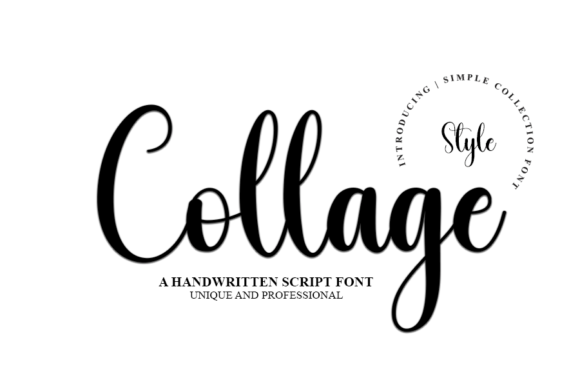
Introducing the Collage Font family, a handcrafted masterpiece that captures the essence of warmth and comfort – the perfect addition to your digital toolbox. Dive into a world of creativity with this enchanting script font that's as versatile as it is beautiful. Whether you're a seasoned designer or just starting, Collage will elevate your projects to new heights.
Picture this: a handwritten font so charming, it invites your readers into a cozy embrace. Its graceful curves evoke the warmth of a crackling fireplace, while its playful flourishes add a touch of whimsy that sparks a smile. Collage is more than just a font; it's an expression of your unique style.
Unleash your creativity with Collage, a font that's as versatile as your imagination. Its timeless design seamlessly complements any project, from heartfelt greeting cards to eye-catching digital designs. Add a touch of elegance to your presentations, let your craft projects shine with personality, or make your social media posts stand out from the crowd. With Collage, the possibilities are endless.
Step into the world of Collage, where every letter is a work of art. Each character dances across the page with a charm that captivates and inspires. Whether you're designing for print or digital, Collage Font transforms your words into visual masterpieces. Its effortless flow and elegant lines add a touch of magic to every project.
Collage Font is the perfect choice for those who yearn for a touch of homey charm in their digital creations. Its warm and inviting feel makes it ideal for projects that evoke a sense of nostalgia, comfort, and belonging. Whether you're designing a family photo album, creating personalized gifts, or crafting heartwarming invitations, Collage will add a touch of heartfelt warmth that resonates with your audience.